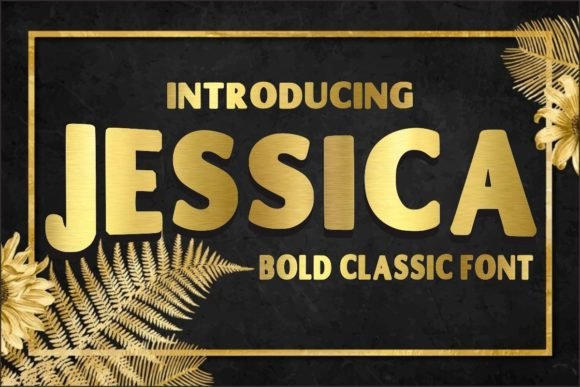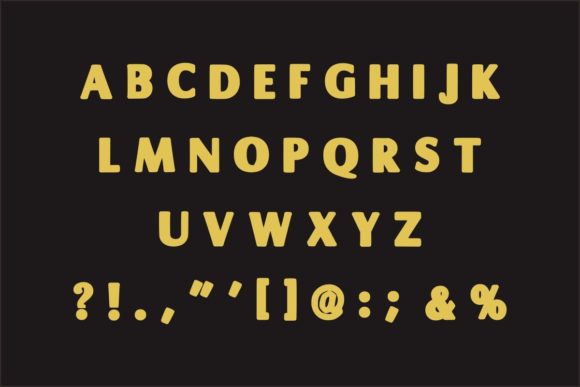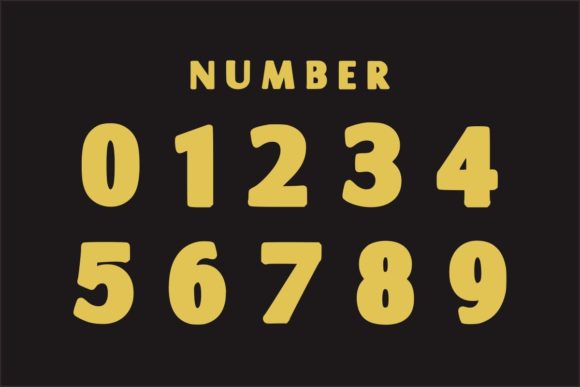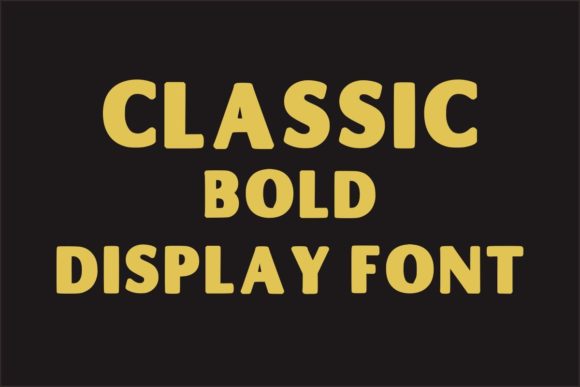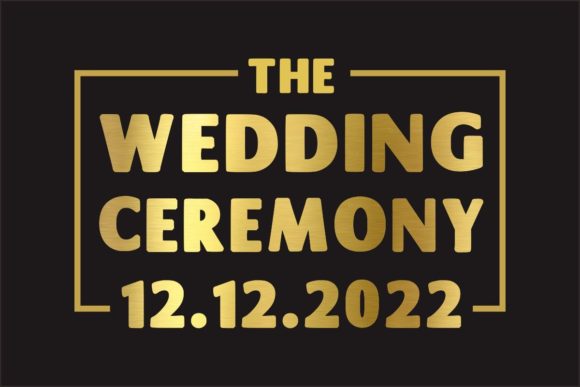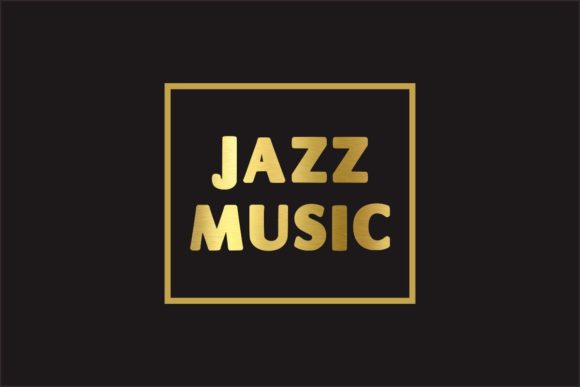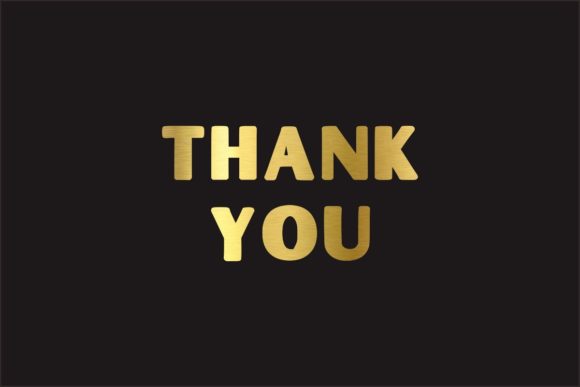
Discover Your New Favorite Font: Jessica Font
Have you ever found yourself stuck in front of a blank canvas, struggling to bring your creative vision to life? We’ve all been there. But what if I told you that a single font could be the key to unlocking your next masterpiece? Enter Jessica Font, a bold, distinct, and charming display font that’s sure to captivate your audience.
Designed with versatility in mind, Jessica Font is perfect for a wide range of crafty ideas, from letterheads and titles to stationery. Its unique look will add a touch of personality to any project, making it a valuable addition to any designer’s toolkit.
Whether you’re a seasoned pro or just starting out, Jessica Font is sure to inspire your next creative endeavor. Its original look and feel will make it a staple in your design arsenal, and its wide range of applications will keep you coming back for more.
Jessica Font Key Features
- Font Family: Jessica is a sans-serif font family designed for digital use.
- Character Set: Supports a wide range of languages, including Latin, Greek, and Cyrillic scripts.
- Size: Available in multiple weights, ranging from Light (100) to Black (900) with corresponding italic styles.
- Unique Characteristics: Jessica features a clean, modern design with a subtle rounded edge, making it highly legible in digital environments.
Review of Jessica Font
Overall, I’d say the Jessica Font is a solid choice for those looking for a clean and modern sans-serif font. ✨ Its simplicity and versatility make it a great option for a wide range of applications, from digital displays to printed materials.
Here are some of the things that work well with the Jessica Font:
- ✨ It’s highly legible, even at small sizes.
- ✨ The font is highly customizable, making it easy to adapt to different design styles.
- ✨ It’s available in a wide range of weights and styles, making it a great choice for creating visual hierarchies.
- ⚠️ The font may not be as unique or distinctive as some other options.
- ⚠️ Some users may find the font too simple or bland, depending on their design preferences.
Overall, I’d say the Jessica Font is a great choice for designers who want a clean and modern font that’s easy to work with. While it may not be the most exciting option, it’s a solid choice for a wide range of applications.
Tips for Getting the Most Out of Jessica Font
For best results, use Jessica Font in combination with bold or italic styles to add emphasis to your text.
Experiment with different font sizes and line spacing to achieve the desired visual effect.
Jessica Font is ideal for use in:
- Wedding